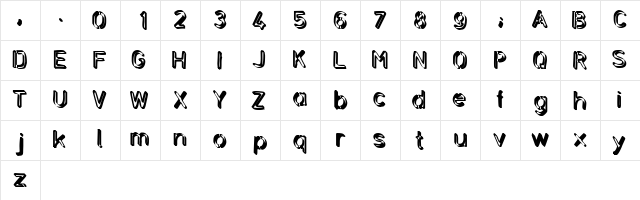
Backcab Extra Crispy
Design Context for Backcab Typeface
Backcab is a composed and adaptable typeface that performs quietly and consistently across a wide range of design contexts.